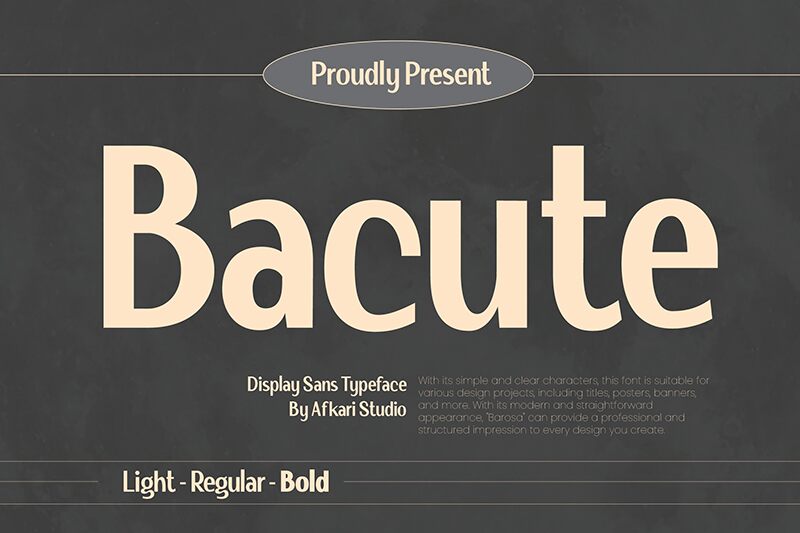
Bacute Regular
BACUTE Display Sans Typeface by Afkari Studio is a semi-light sans serif font that exudes modernity and legibility. Its sleek and stylish design makes it a versatile choice for a wide array of creative projects, including logos, posters, product labels, cartoons, editorial designs, website/blog elements, social media posts, packaging designs, and more.
The unique characteristics of BACUTE make it an excellent choice for designers looking to add a contemporary touch to their work while maintaining readability. Whether you're working on a bold and eye-catching poster or a subtle and sophisticated logo, BACUTE has the flexibility to adapt to any style or type of project.
With its captivating blend of contemporary design and readability, BACUTE is the perfect choice for designers seeking a font that stands out with finesse and clarity in diverse creative projects.
The unique characteristics of BACUTE make it an excellent choice for designers looking to add a contemporary touch to their work while maintaining readability. Whether you're working on a bold and eye-catching poster or a subtle and sophisticated logo, BACUTE has the flexibility to adapt to any style or type of project.
With its captivating blend of contemporary design and readability, BACUTE is the perfect choice for designers seeking a font that stands out with finesse and clarity in diverse creative projects.